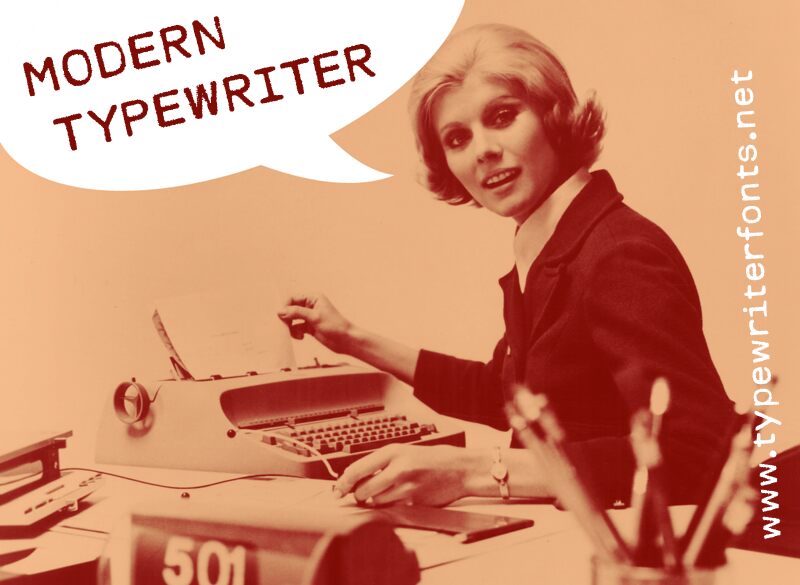
Modern Typewriter by Lukas Krakora is a captivating display font designed by Lukas Krakora. Its weathered, eroded aesthetic evokes a sense of industrial grittiness, lending an air of authenticity and vintage charm to any design.
The irregular, imperfect letterforms convey a handcrafted quality, while the bold, geometric structure maintains a strong, legible presence. This font's unique character makes it an ideal choice for editorial layouts, packaging, branding, and any project seeking to cultivate a rugged, artisanal visual identity.
Modern Typewriter's versatility and striking visual impact make it a compelling option for designers seeking to add depth and character to their work.